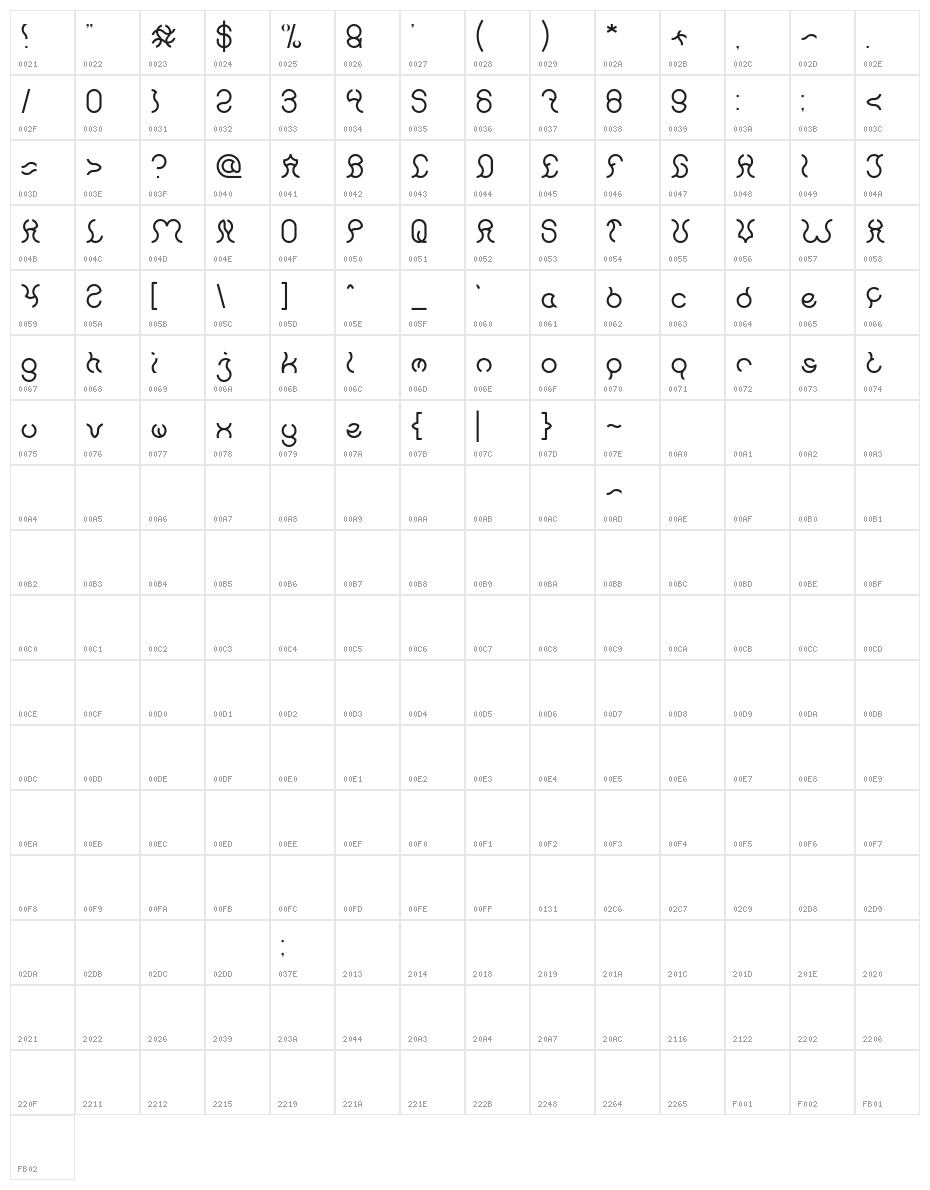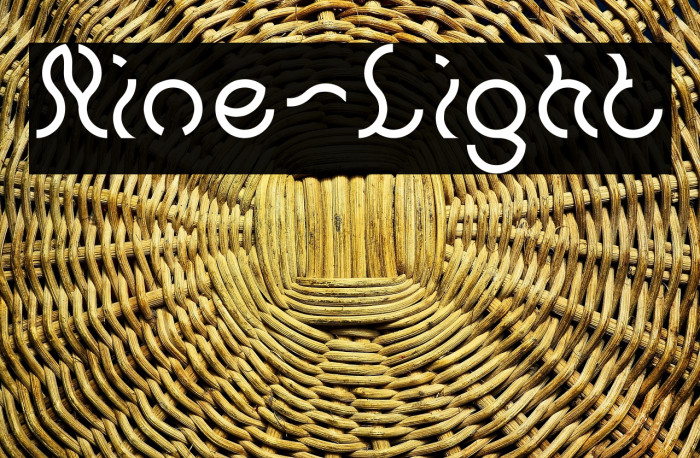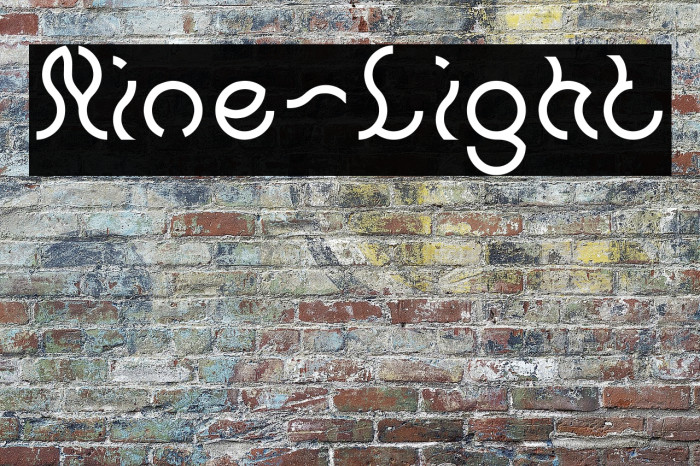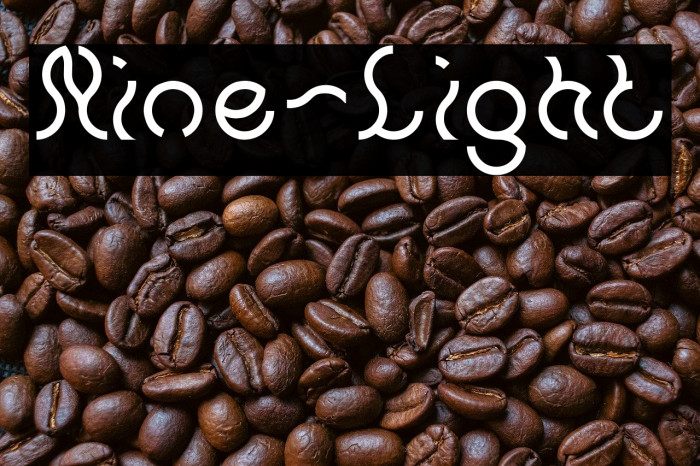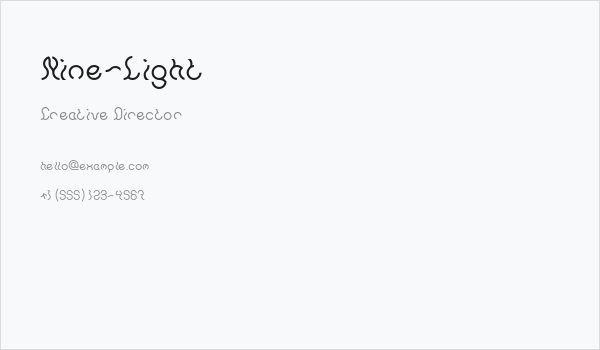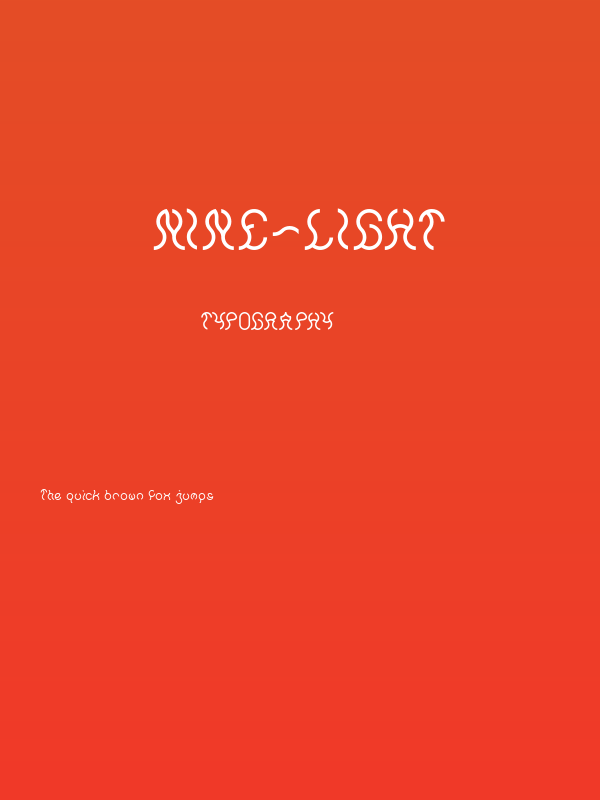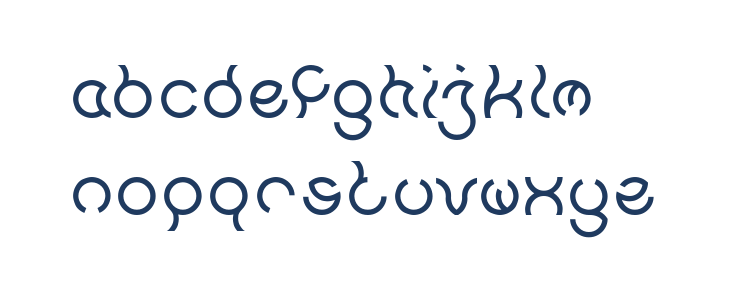
Nine-Light Font
Nine-Light Description
This font features a unique and artistic design with a playful twist on traditional letterforms. Each character is crafted with a distinctive flair, incorporating curves and loops that give it a whimsical appearance. The uppercase letters are bold and prominent, while the lowercase letters maintain a consistent style with slightly more subtle curves. Numbers and special characters are designed to match the overall aesthetic, ensuring a cohesive look across all text. The font's style is both modern and decorative, making it suitable for creative projects that require a touch of originality.
| Overall Style | Modern, Decorative |
| Proposed Projects | Ideal for creative projects such as posters, invitations, branding, and packaging that require a unique and artistic touch. |